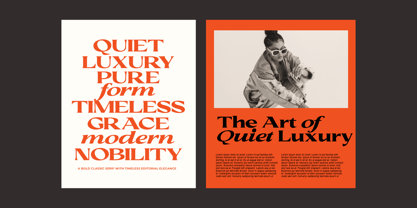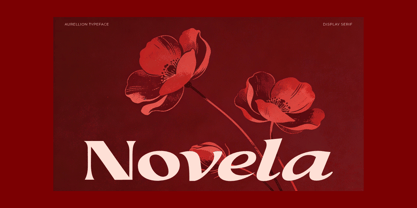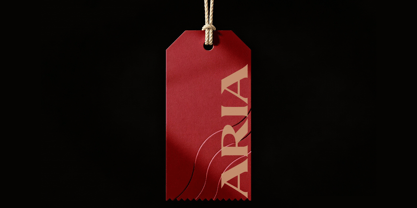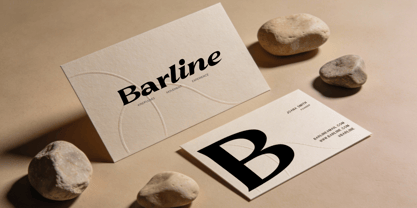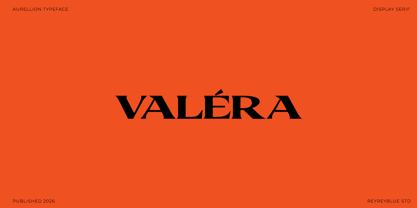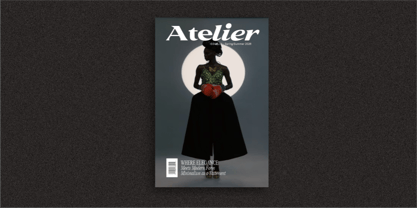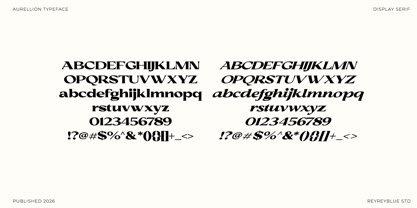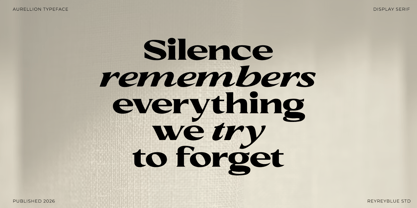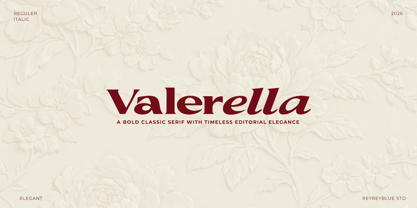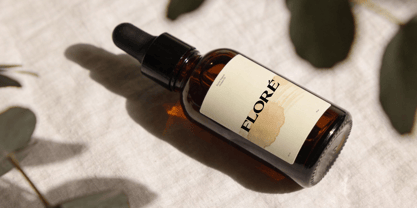
Valerella
by Reyrey Blue Std
The Valerella Font Family was designed by Risca Anitawati and published by Reyrey Blue Std. Valerella contains 2 styles and family package options. More about this family
Valerella is a bold classic serif font crafted to deliver timeless editorial elegance with a modern, refined touch. Designed for creatives who seek sophistication, Valerella blends strong serif structures with graceful curves, making it perfect for luxury branding, fashion editorials, magazines, and high-end logos. Inspired by vintage editorial typography and contemporary design trends, Valerella offers a confident yet elegant personality. Its bold letterforms ensure excellent readability while maintaining a stylish, premium feel across both print and digital platforms. This typeface works beautifully for logo design, headlines, packaging, invitations, beauty brands, wedding designs, book covers, posters, and social media visuals. Whether you’re creating a classic brand identity or a modern luxury aesthetic, Valerella adds character, authority, and timeless charm. Features Classic bold serif style with editorial elegance Includes Regular & Italic Clean, refined curves with strong visual impact Ideal for branding, logos, magazines, fashion, beauty, and luxury projects Works perfectly for both print and digital use Perfect For Luxury brands, fashion editorials, magazine titles, wedding designs, cosmetic packaging, boutique logos, social media graphics, book covers, posters, and premium branding projects. Valerella is more than just a font — it’s a statement of elegance, confidence, and timeless beauty.
Designers: Risca Anitawati
Foundry: Reyrey Blue Std